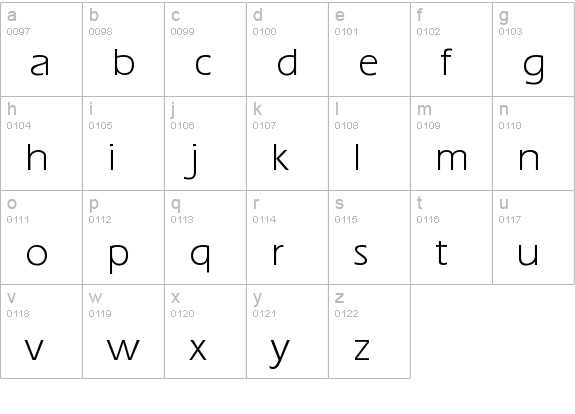
Ergoe Regular is the standard, neutral variant in the Ergoe typeface family \xE2\x80\x94 well suited to general body text, paragraphs, and standard typographic work.
Discover the sleek and modern Ergoe Regular font, designed to bring a touch of elegance to your projects. With its clean lines and balanced proportions, this versatile font is perfect for a wide range of design applications. Whether you're working on a branding project, creating a stylish website, or designing eye-catching marketing materials, Ergoe Regular has got you covered. The best part is, Ergoe Regular is available for free download at FontsMarket.com. This means you can easily access this high-quality font and use it in your projects without any cost. Don't miss out on the opportunity to enhance your designs with the timeless appeal of Ergoe Regular. Download it now and watch your creations come to life with this sophisticated and modern typeface.